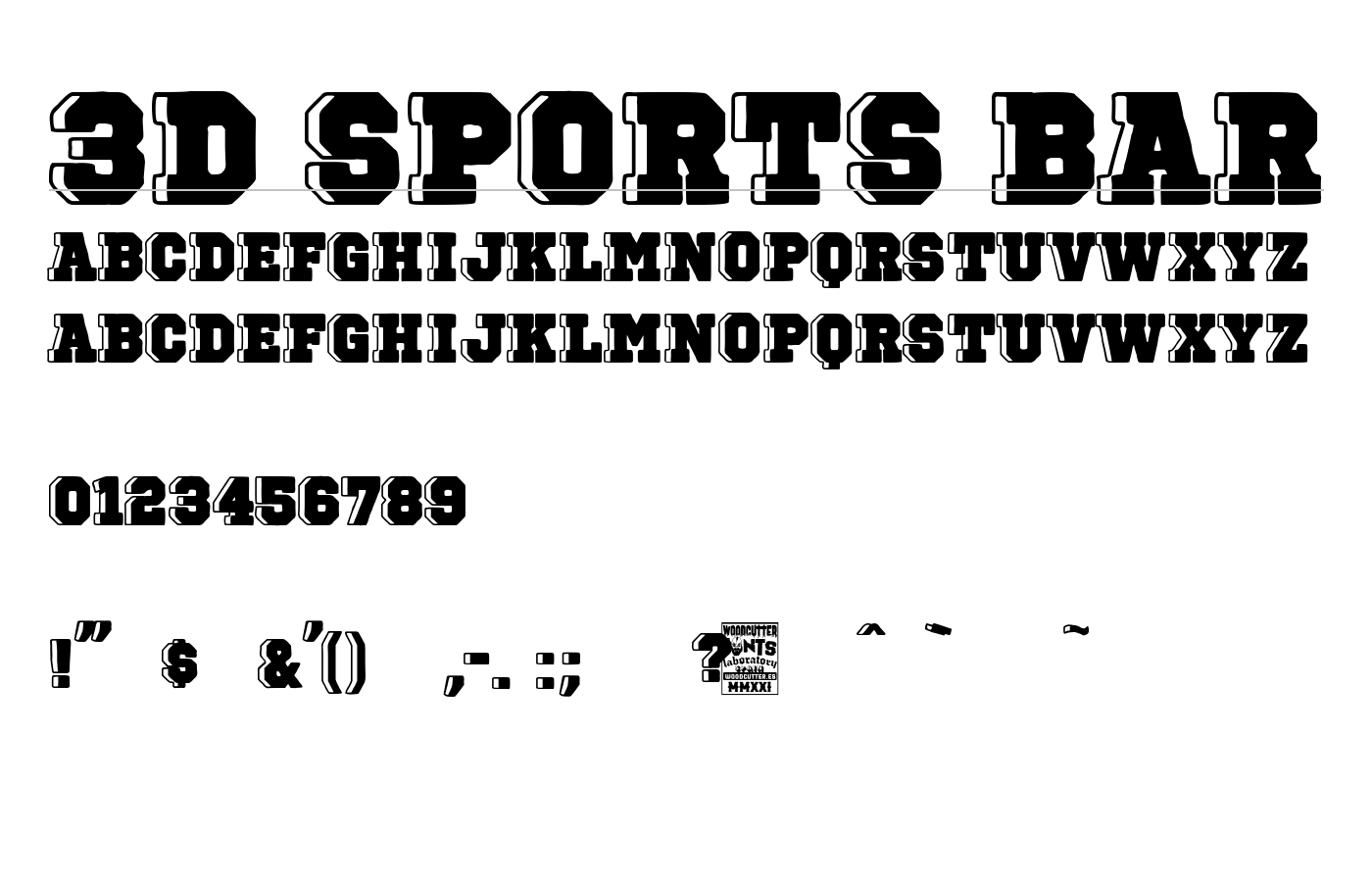
3D Sports Bar is a bold slab serif font with a strong, blocky presence and playful three-dimensional shading that adds depth and character. Its heavy weight and solid structure make it perfect for eye-catching headlines, logos, and sports-related branding, conveying energy and a vintage athletic vibe. This font works especially well for projects needing a sturdy, dynamic look with a touch of fun and personality.
3D Sports Bar Font
About 3D Sports Bar Font